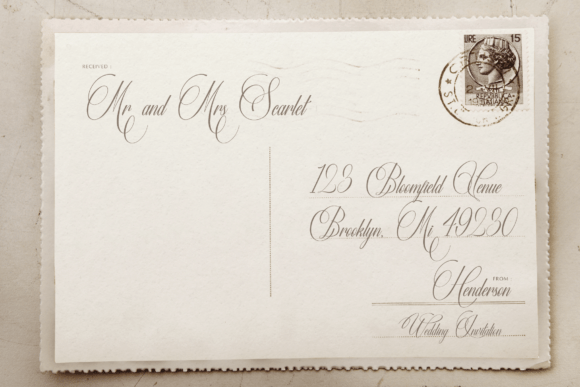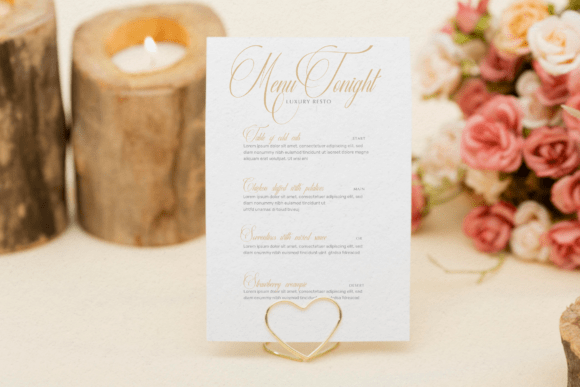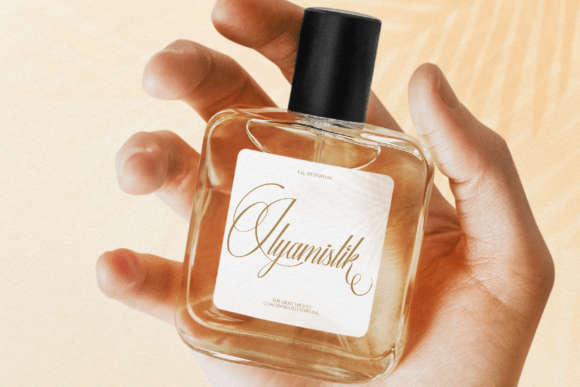
Introduction to Miss Roderick Font
As a designer, there’s nothing quite like the thrill of creating a beautiful piece of art for a special occasion – like a wedding invitation or a heartfelt quote. For me, it’s the moment when all the elements come together in perfect harmony, and I know I’ve created something truly special. That’s exactly what happens when you use the stunning Miss Roderick Font – a high-quality design resource that radiates sophistication and romantic flair.
With its elegant loops and refined thin strokes, this typeface is perfect for formal invitations, elegant branding, and upscale stationery. But what really sets Miss Roderick Font apart is its versatility – featuring over 280 glyphs, stylistic alternates, ligatures, and multilingual support, making it an ideal choice for a wide range of creative projects.
Key Features of Miss Roderick Font
- High-quality design resource suitable for various creative projects
- Unique, elegant design with a transparent background for versatile use
Honest Review: Miss Roderick Font
I recently stumbled upon the Miss Roderick Font, a high quality design resource that caught my attention. As a designer, I’m always on the lookout for unique and creative fonts that can elevate my projects.
Here are some of the things that work well with the Miss Roderick Font:
- ✨ Unique and elegant design
- ✨ High quality typography
- ✨ Versatile and easy to use
- ⚠️ Limited character set (only uppercase and lowercase letters, no punctuation or symbols)
- ⚠️ Not ideal for large blocks of text (can be difficult to read)
Overall, I think the Miss Roderick Font is a great addition to any designer’s toolkit. Its unique design and high quality typography make it a great choice for creative projects where you want to add a touch of elegance and sophistication.
Designing with Miss Roderick Font
The Miss Roderick Font is a high-quality design resource ideal for creative projects. It features a transparent background, making it perfect for overlaying text on images or backgrounds.
Tips for Getting the Most Out of Miss Roderick Font
For best results, use the Miss Roderick Font in conjunction with high-quality images or backgrounds. Experiment with different font sizes, colors, and styles to create unique and eye-catching designs.
The Miss Roderick Font is ideal for a variety of creative projects, including branding, advertising, and editorial design. Its transparent background makes it perfect for overlaying text on images or backgrounds, creating a clean and modern look.